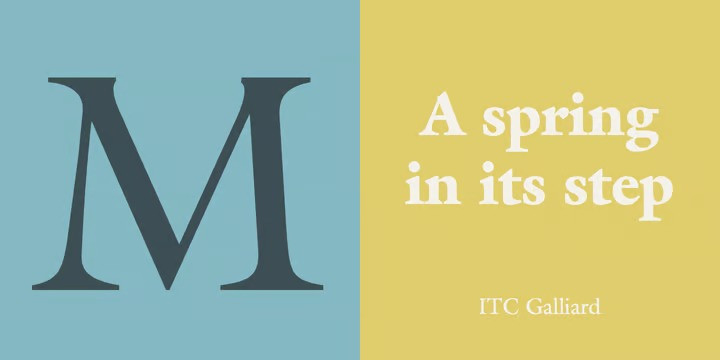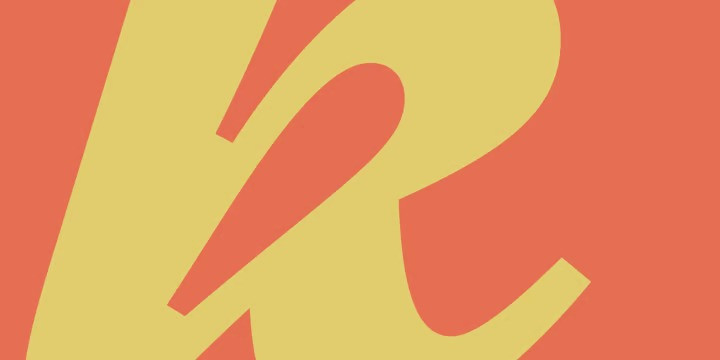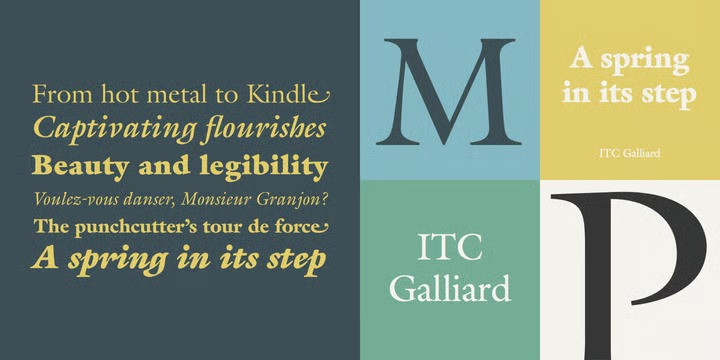
ITC Galliard Font
Galliard Serif Font was originally designed for Mergenthaler Linotype in 1978 as a photocomposition typeface. It is modeled on the work of Robert Granjon, a sixteenth-century punchcutter whose typefaces are renowned for their beauty and legibility. ITC Galliard is a notable typeface for text; the italic is very distinctive in occasional pieces such as invitations and informal announcements.